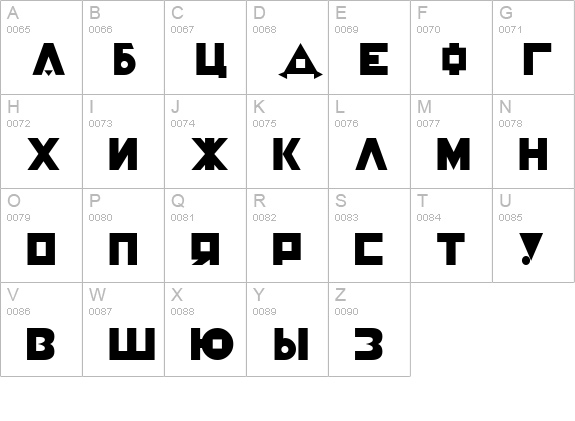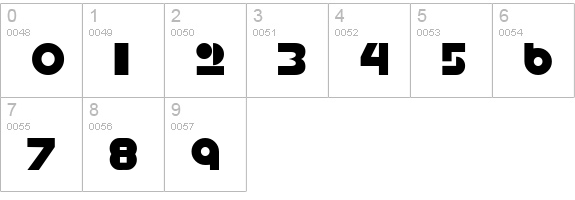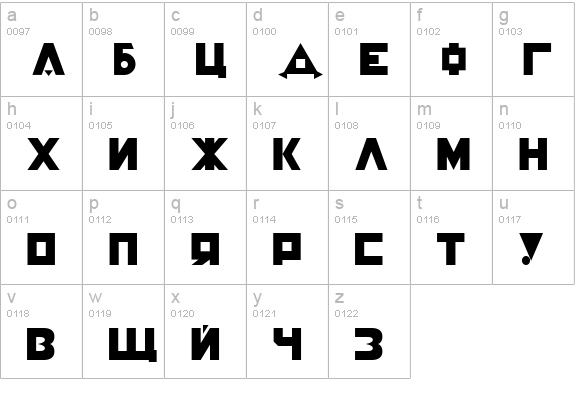
The Constructivist Cyrillic font is a stunning display of bold geometric shapes and avant-garde design elements inspired by the Constructivist art movement of the early 20th century. Its intricate letterforms exude a sense of dynamism and modernity, making it perfect for creating eye-catching headlines, posters, and branding materials. This unique font pays homage to the innovative spirit of the Constructivist movement, with its clean lines, sharp angles, and distinctive letter structures. Whether you're looking to add a touch of artistic flair to your designs or make a bold statement, the Constructivist Cyrillic font is sure to impress. Best of all, this striking font is available for free download at FontsMarket.com. So why wait? Add a touch of artistic sophistication to your projects with the Constructivist Cyrillic font today!